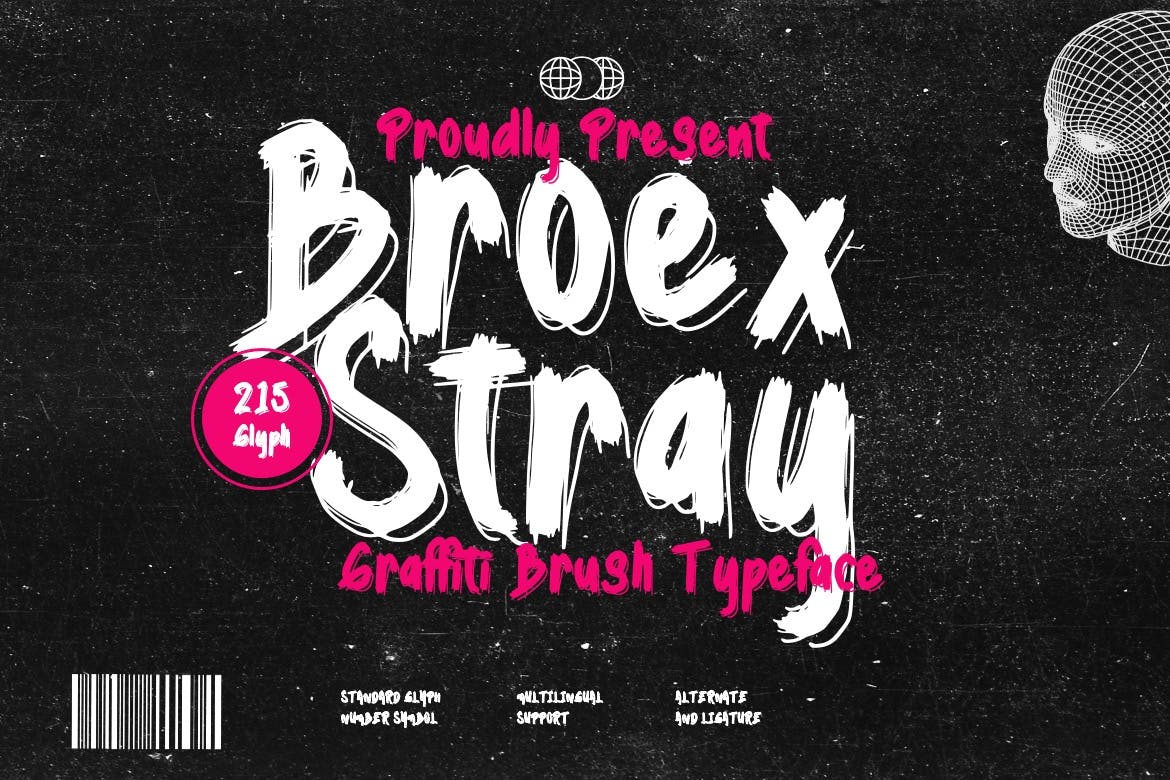
Broex Stray - Graffiti Brush Font
Perfect for streetwear branding, urban posters, logos, social media graphics, music album covers, and graffiti art projects.
The Broex Stray - Graffiti Brush Font excites designers with its bold, expressive brush strokes and raw graffiti style that captures the rebellious energy of street culture.
The Broex Stray - Graffiti Brush Font Free Download is a dynamic typeface crafted to infuse your projects with urban attitude and artistic flair. Its textured brush strokes create a lively, authentic vibe perfect for designs that need to stand out with edge and personality. Whether you’re working on branding, posters, or apparel, Broex Stray delivers a powerful impact.
One of the key strengths of Broex Stray - Graffiti Brush Font is its unique balance between expressive brush textures and legibility. Despite its wild style, it remains clear and effective for headlines and display text, ensuring your message hits loud and clear.
In branding, Broex Stray conveys boldness, creativity, and streetwise authenticity. It pairs excellently with gritty textures, vibrant colors, and urban layouts, helping brands connect with youthful, edgy audiences.
For digital projects, this font enhances website headers, social media posts, and promotional materials with its energetic graffiti style. Its rebellious character guarantees your digital presence stands out with confidence and flair.